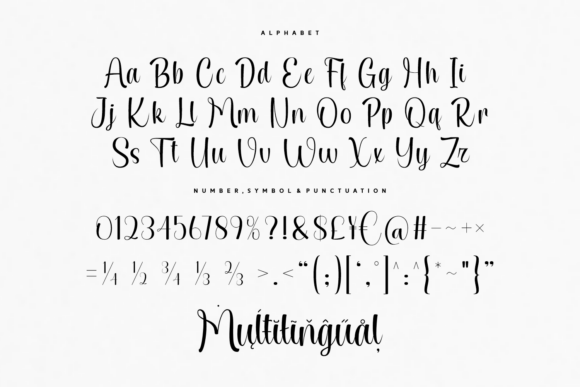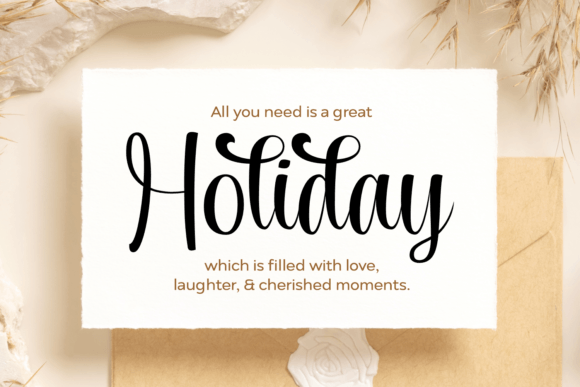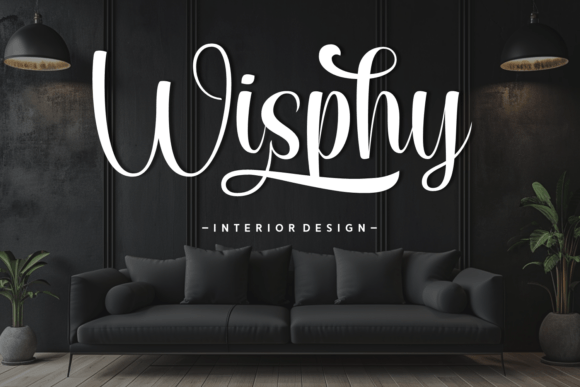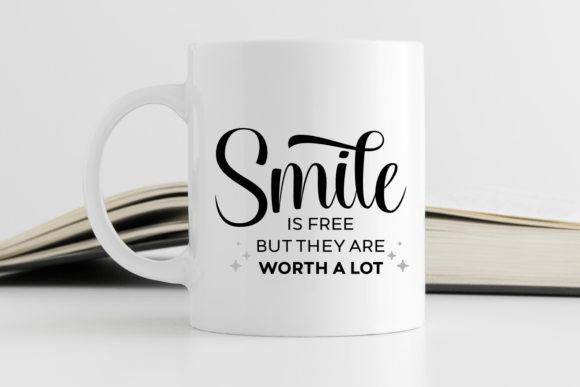
The Belisah Font: Elevate Your Designs with Elegance and Personality
Have you ever been in the middle of a design project, and suddenly, you’re stuck on finding the perfect font? I recall a recent experience where a client requested a wedding invitation design that exuded both sophistication and playfulness. As I scrolled through my font library, I stumbled upon the Belisah font, and it instantly caught my attention. With its bold strokes, elegant swashes, and stylish handwritten script, I knew I had found the perfect fit.
An Honest Review of Belisah Font
What I Love About Belisah ✨
- ✅ Versatile Design: Belisah is perfect for a wide range of projects, from branding and wedding invitations to logos, creative stationery, and more.
- ✅ Elegant Swashes: The font’s beautiful swashes add a touch of sophistication and elegance to any design.
- ✅ Modern Aesthetics: Belisah seamlessly blends modern charm with timeless appeal, making it ideal for both print and digital designs.
- ✅ Easy to Read: Despite its elegant and cursive nature, Belisah remains highly legible, even at smaller sizes.
- ⚠️ Requires Attention to Kerning: As with many script fonts, you may need to adjust the kerning to ensure optimal spacing between letters.
- ⚠️ Limited Use in Body Text: While Belisah is stunning for headings and titles, it may not be the best choice for lengthy body text due to its cursive nature.
The Story Behind Belisah Font
Belisah was inspired by the beauty of handwritten scripts and the elegance of traditional calligraphy. Its creator aimed to craft a font that would bring a touch of sophistication and personality to any design project. With its bold strokes and elegant swashes, Belisah has become a popular choice among designers and crafters.
| Q: What type of projects is Belisah best suited for? | A: Belisah is versatile and works well for branding, wedding invitations, logos, creative stationery, greeting cards, social media graphics, and packaging. |
| Q: Does Belisah support OpenType features? | A: Yes, Belisah supports OpenType features, including swashes and stylistic alternates, which can be accessed through compatible design software. |
| Q: Is Belisah suitable for body text? | A: While Belisah is beautiful for headings and titles, it’s not ideal for lengthy body text due to its cursive nature. Consider using a more readable font for body text. |